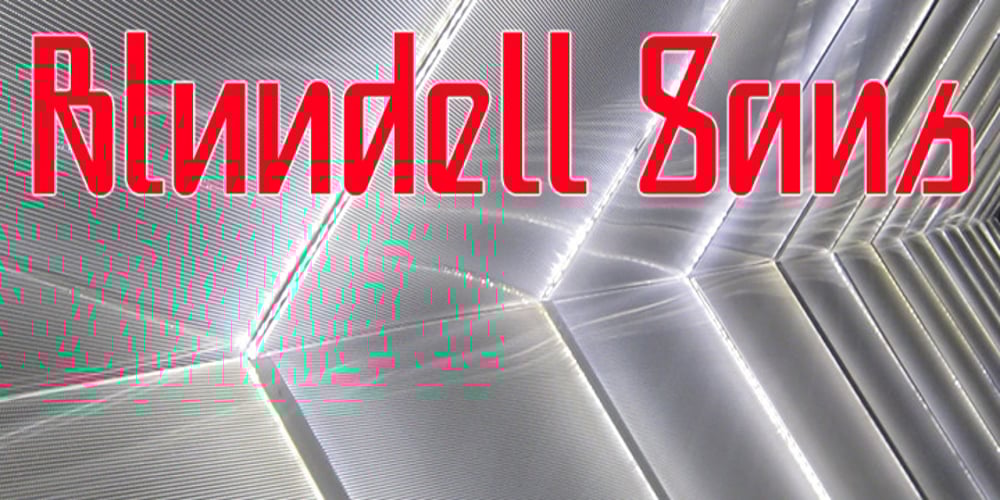
Blundell Sans Font Family was designed by published by K-Type. Blundell Sans contains 2 styles and family package options. Blundell Sans is a type-hybrid that combines the precision and power of a sans serif with the elegance and humanism of a script. A resolutely upright font with a strong diagonal thrust.